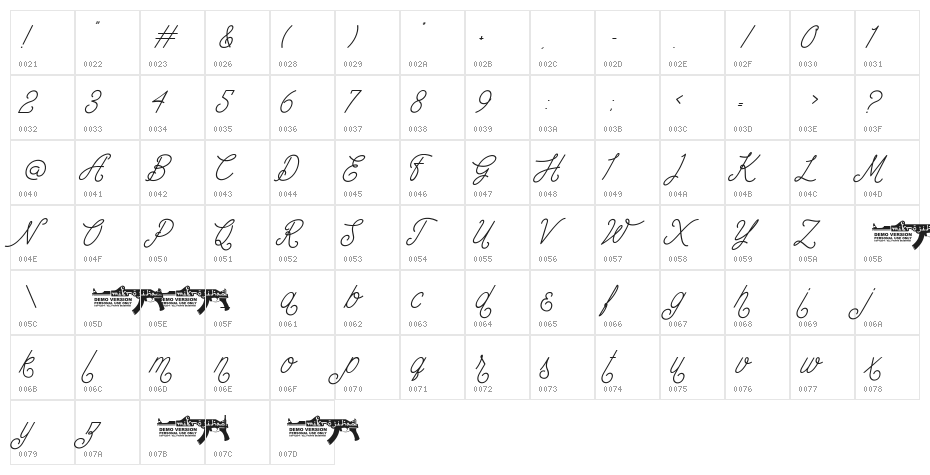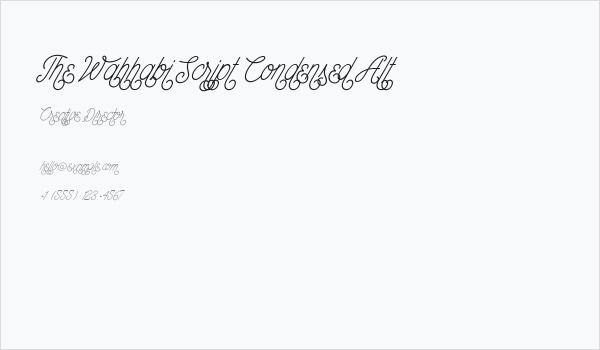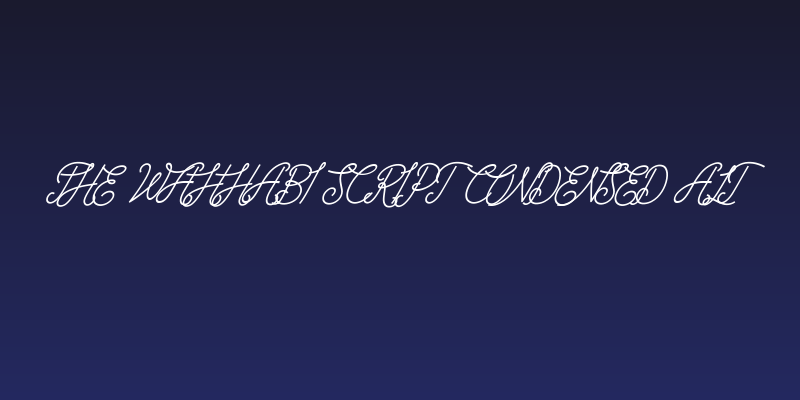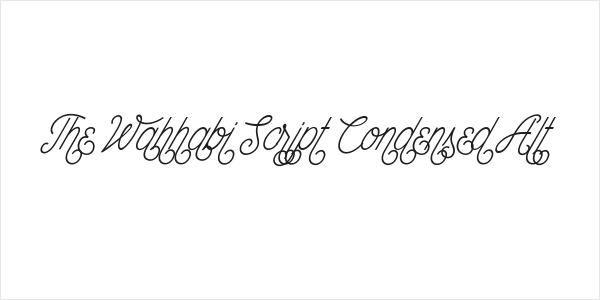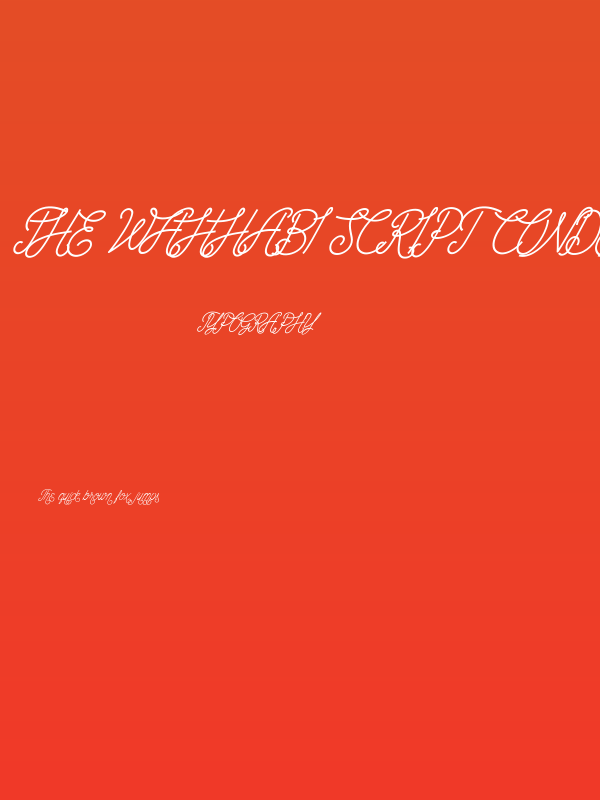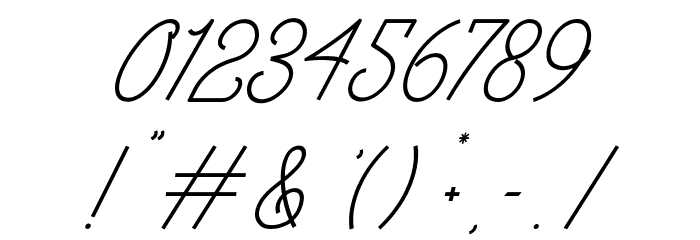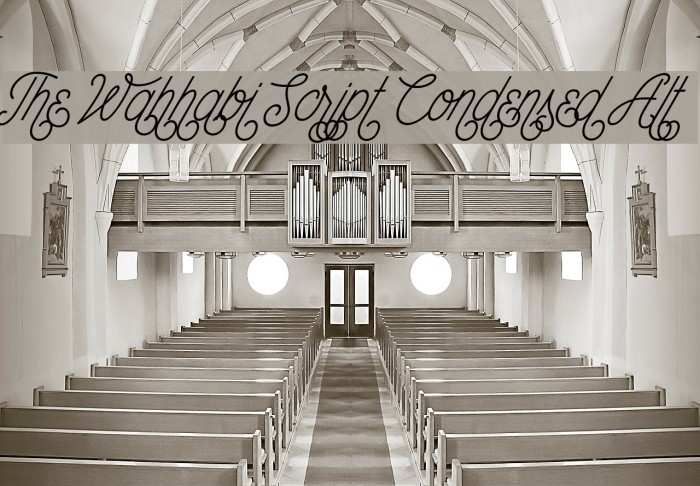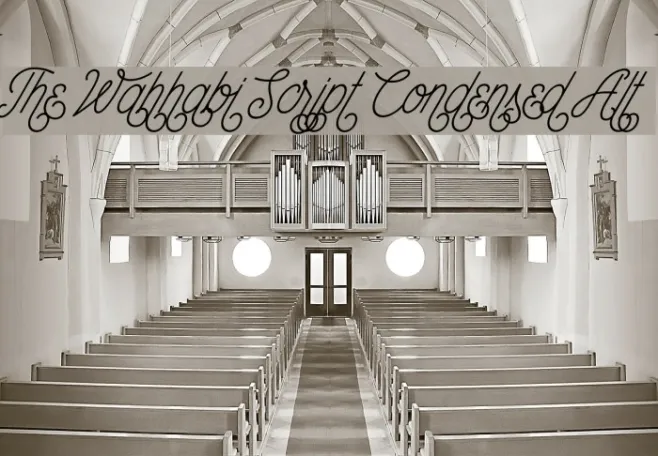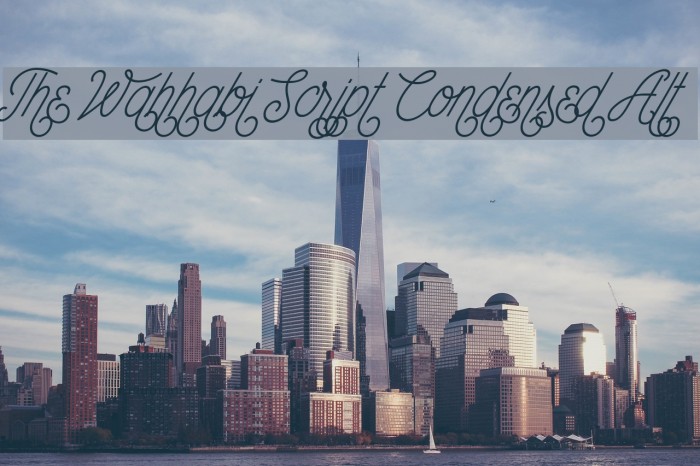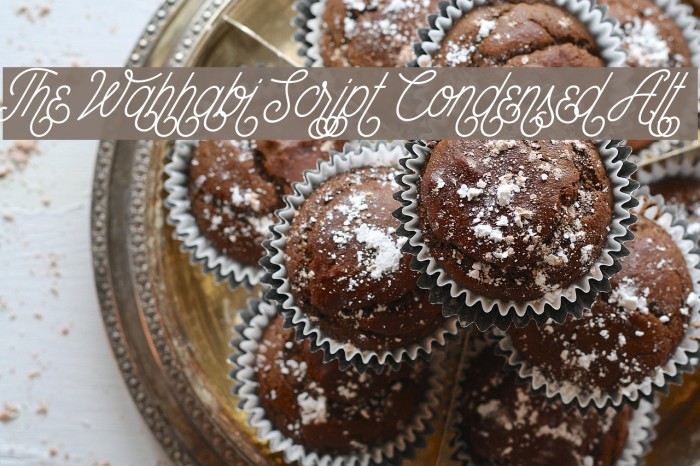
The Wahhabi Script Condensed Alt Font
The Wahhabi Script Condensed Alt Description
This font features an elegant and flowing script style, characterized by its condensed and intricate letterforms. The strokes are smooth and continuous, with a high degree of curvature, giving it a sophisticated and artistic appearance. The uppercase letters are particularly ornate, with elaborate loops and swirls, while the lowercase letters maintain a consistent fluidity. The numbers and special characters are designed to match the overall aesthetic, ensuring a cohesive look across all text. This font is ideal for projects that require a touch of elegance and creativity.
| Proposed Projects | Ideal for wedding invitations, luxury branding, artistic posters, and elegant packaging designs. |